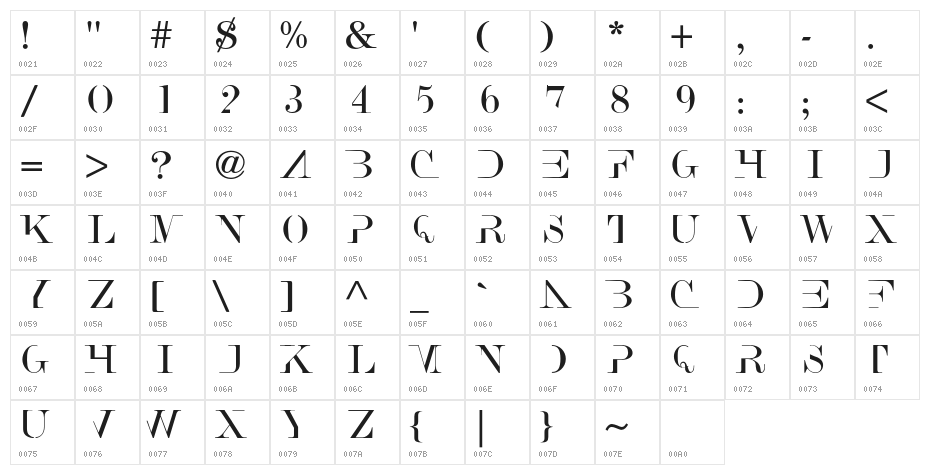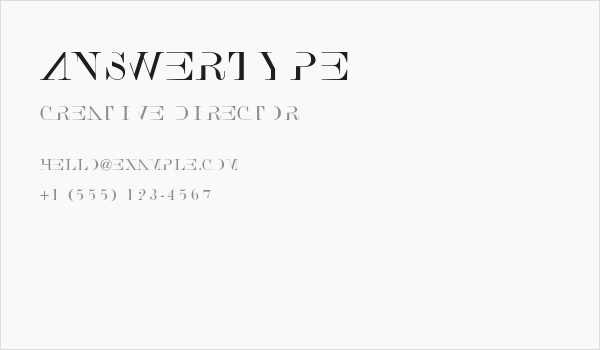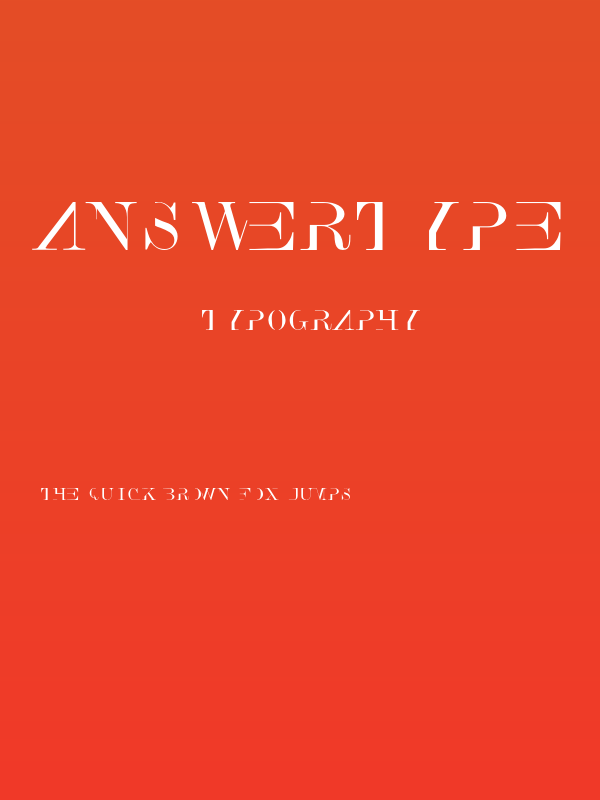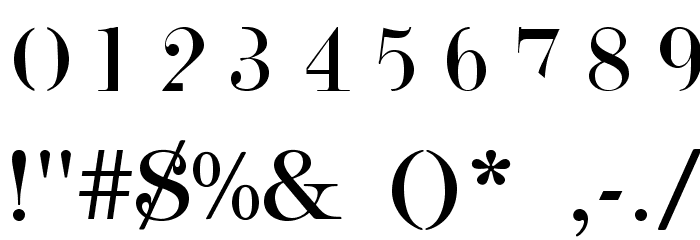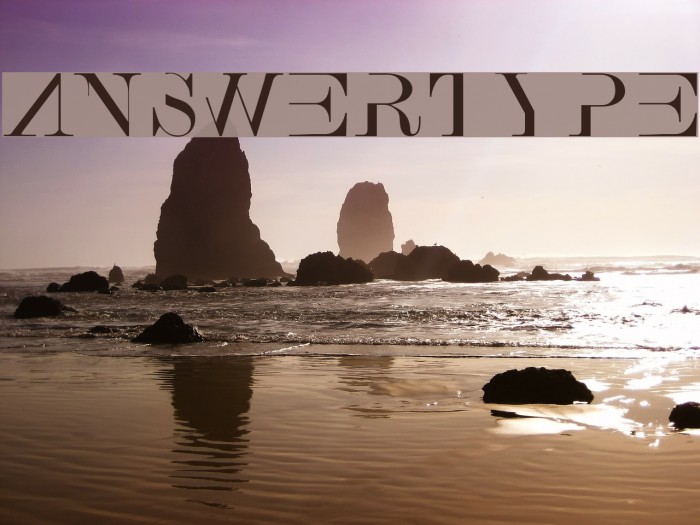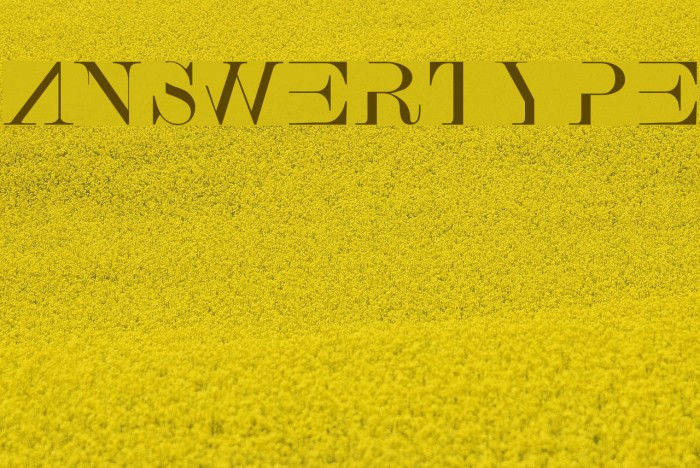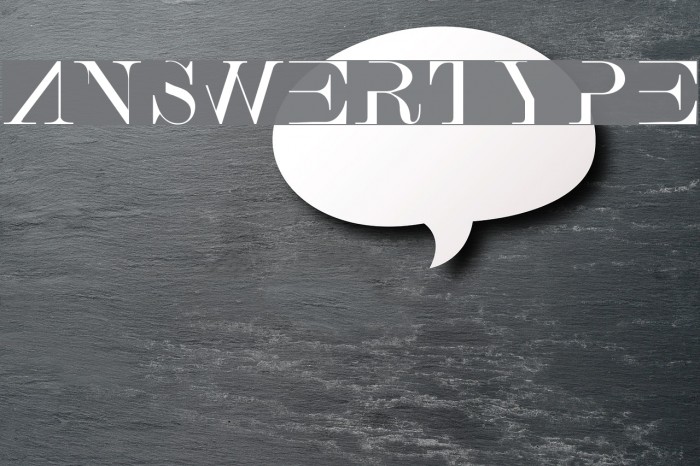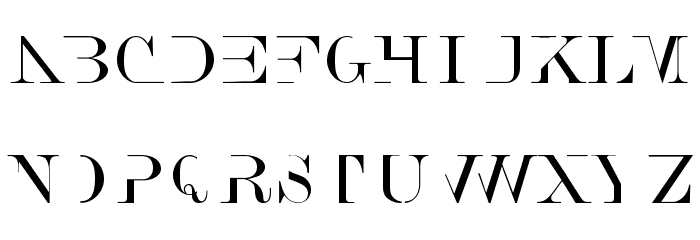
AnswerType Font
AnswerType Description
This font features a modern and artistic design with a unique blend of geometric shapes and sharp angles. The uppercase letters are characterized by their distinct cut-out sections, creating a dynamic and futuristic appearance. The lowercase letters maintain a similar style, offering a cohesive look across the typeface. Numbers and special characters follow the same design principles, ensuring consistency. The font's bold and striking nature makes it ideal for attention-grabbing projects. Its high contrast in stroke thickness adds to its visual impact, making it suitable for modern and creative designs.
| Proposed Projects | Ideal for branding, posters, album covers, and any project requiring a bold, modern aesthetic. |